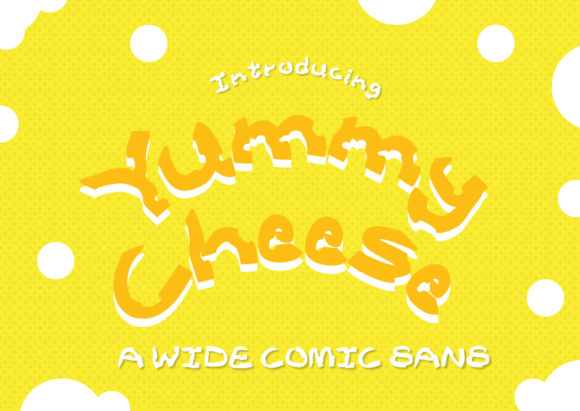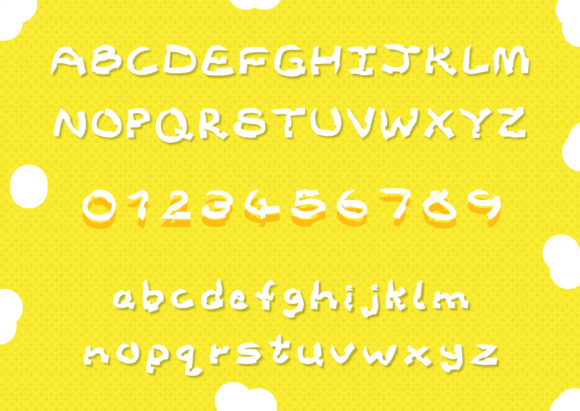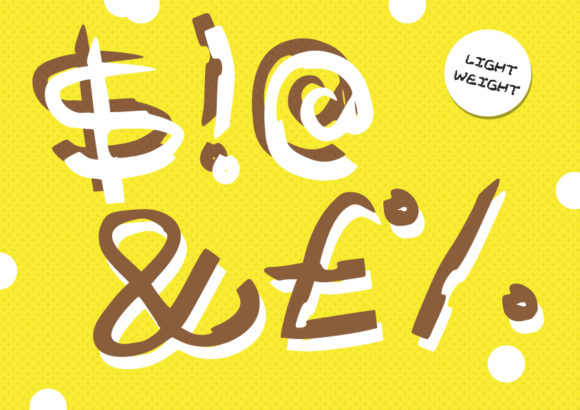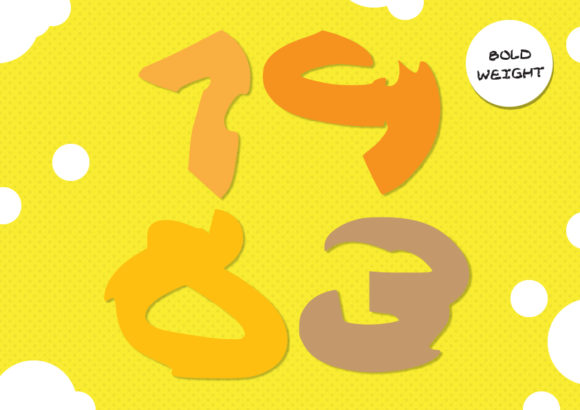
Yummy Cheese Font
About Yummy Cheese Font
Yummy Cheese is a wide comic sans style font. It’s thick, uneven brush strokes feature indents that cause each letter form to look like a piece of swiss cheese. A funky font that leaves a playful style to any design.